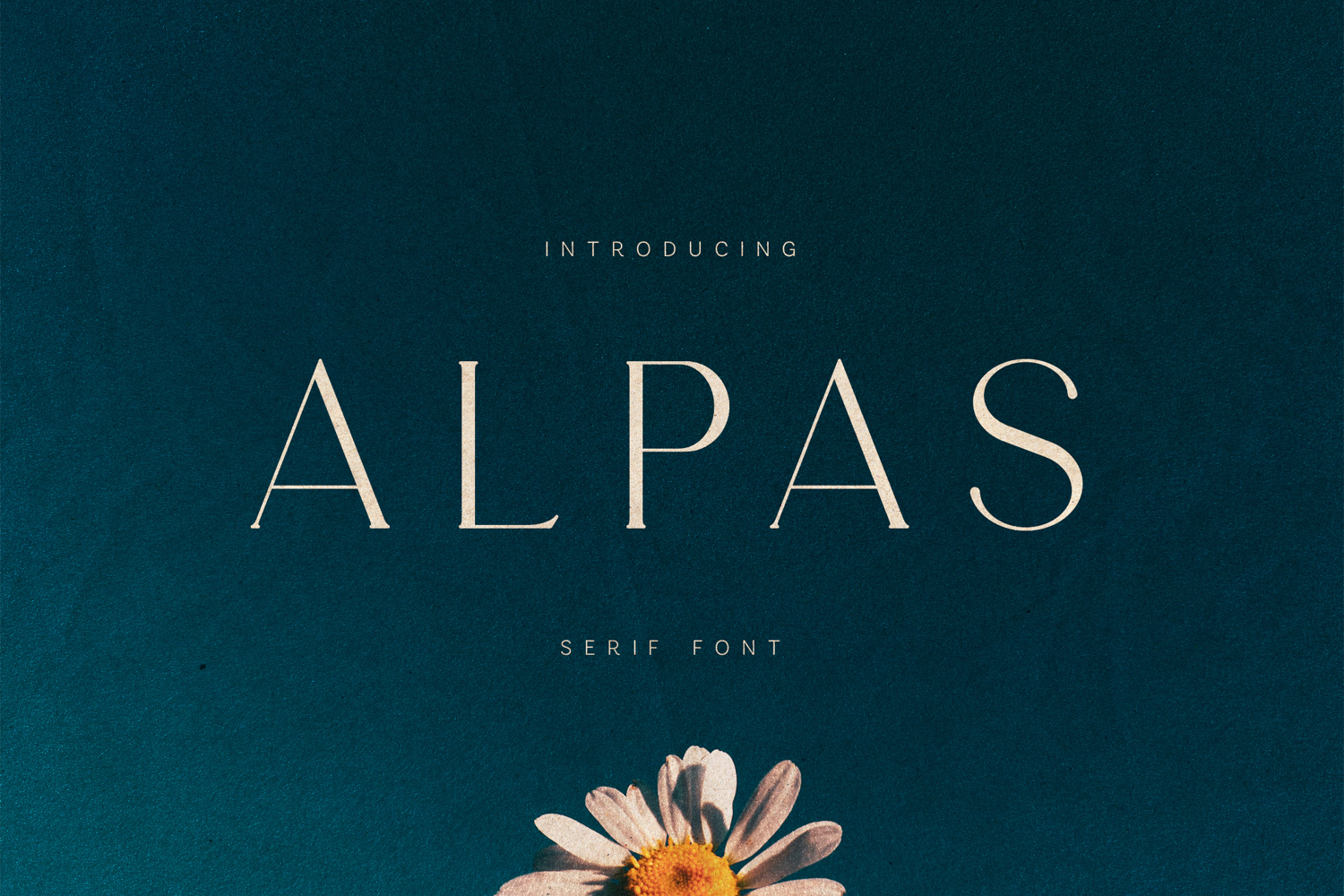
Alpas Minimal Editorial Serif Typeface
ALPAS is an elegant serif font designed with lightness, balance, and understated beauty. Featuring slender strokes, graceful curves, and generous spacing, ALPAS delivers a calm, refined presence that feels modern, poetic, and timeless.
Ideal for editorial layouts, magazines, book covers, branding, posters, quotes, and cultural projects, ALPAS excels in designs that value clarity, atmosphere, and sophistication. Its delicate construction allows typography to breathe, creating a sense of openness and quiet confidence.
ALPAS works beautifully in large headlines and titles, where its elegant proportions and subtle details can fully shine. It pairs naturally with minimal sans serifs or organic scripts for contemporary, premium design systems.
The font includes uppercase and lowercase letters, numerals, punctuation, symbols, and extensive multilingual support, making it suitable for professional and international use.
If you’re looking for a serif font that feels soft, intelligent, and editorial without being rigid, ALPAS offers refined typography with a gentle voice.